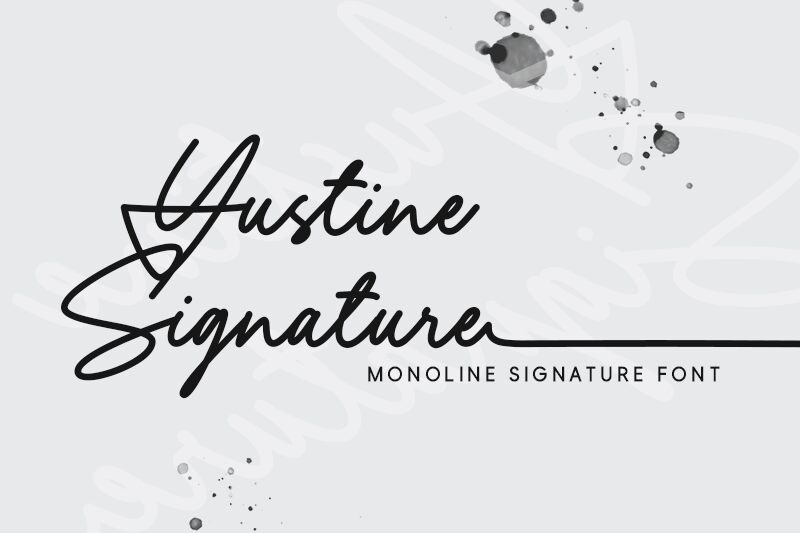
Yustine Signature
Yustine Signature, designed by Lemonthe, exudes a personal touch with its handwritten, signature style. It flaunts an elegant flow reminiscent of a swift pen stroke, adding a bespoke sophistication to any design. The font dances between casual and formal, making it versatile for various applications. Its aesthetic appeal lies in the natural variability of stroke thickness that mimics authentic handwriting.
Perfect for branding projects, invitations, and greeting cards, Yustine Signature brings an intimate and artisanal feel to print and digital media alike. Whether crafting logos or personalizing stationery, this font injects a touch of individuality into every creation.